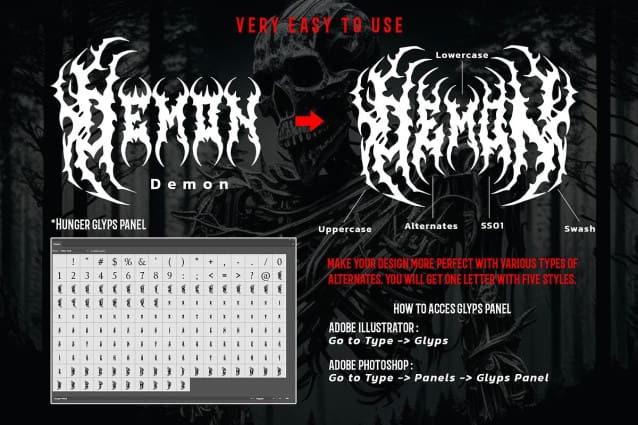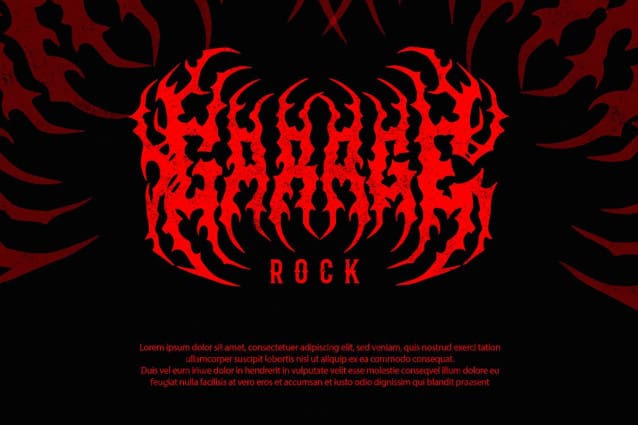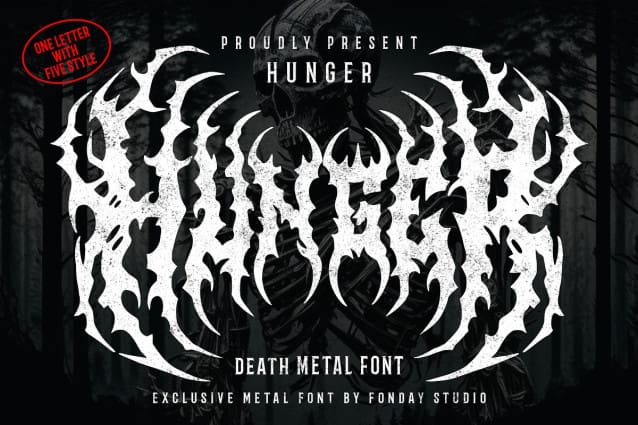
Hunger Black Metal Font
Hunger Black Metal Font, our bold and aggressive font that’s perfect for capturing the raw energy of metal music. With its sharp and edgy design, Hunger Metal is ideal for creating designs that reflect the intensity and power of metal bands. This font has 5 styles in one letter which makes it easy for you to be creative with this font. This font is perfect for your metal band Logo, T shirt Design, Poster, Tattoo and many more.